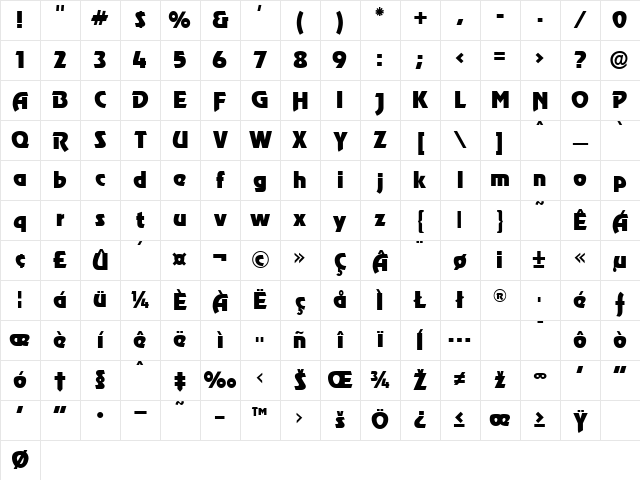
Rizzoe Regular Free Font
Rizzoe Regular
Design Context for Rizzoe
Rizzoe is a composed and adaptable typeface that performs quietly and consistently across a wide range of design contexts.